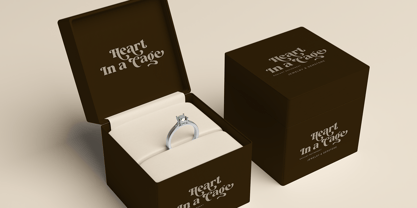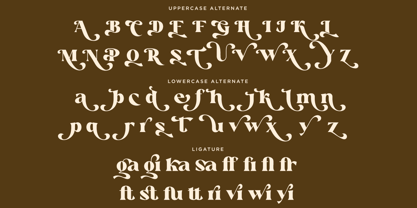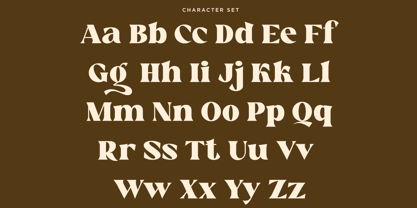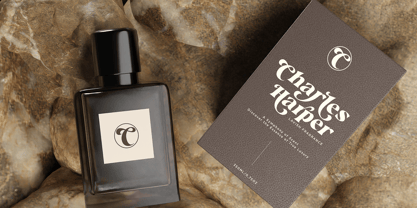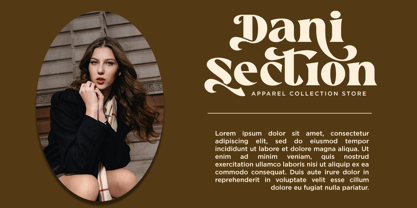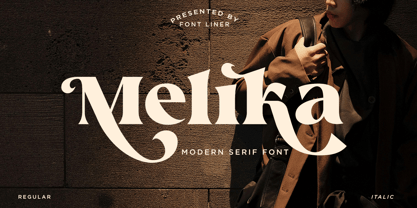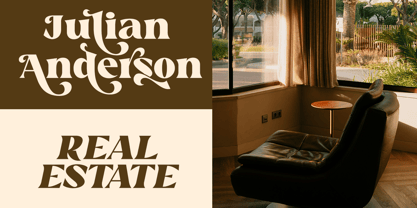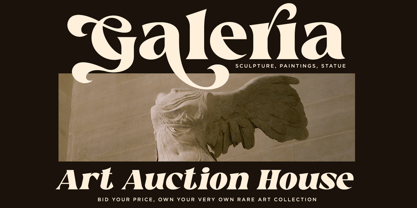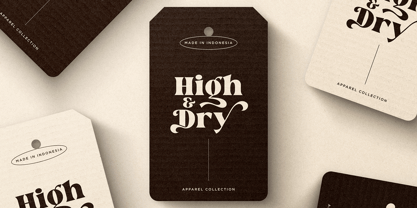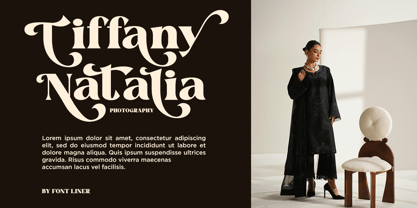
Melika
by Font Liner
The Melika Font Family was designed by Ghina Luthfiarieska and published by Font Liner. Melika contains 2 styles and family package options. More about this family
Melika a captivating modern serif font that blends classic elegance with contemporary flair. Featuring beautiful, flowing curves and a sophisticated aesthetic, Melika is designed to make your text stand out. This versatile typeface comes in both Regular and Italic styles to offer complete design flexibility. Melika perfect for branding, logos, headline, title, editorial design, invitations, fashion, and website Design
- Melika Regular
- Melika Italic
- Stylistic Alternates
- Ligatures Character
- Multilingual Support